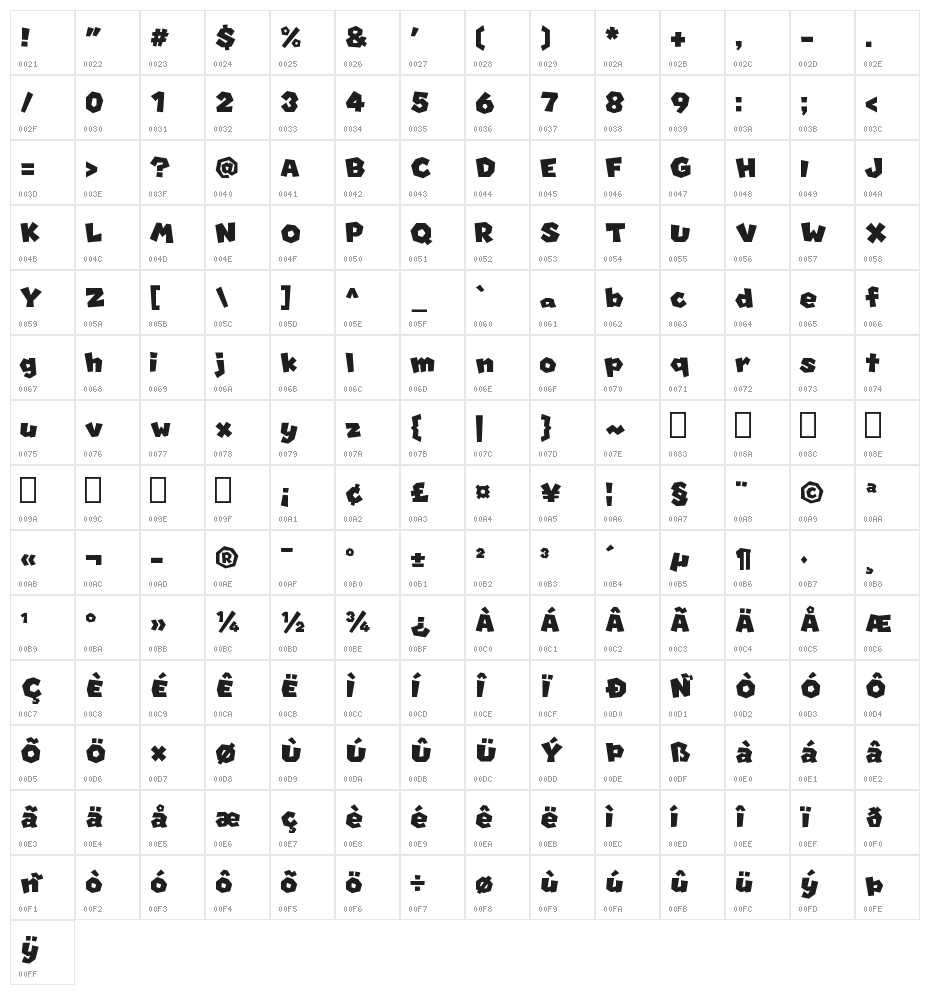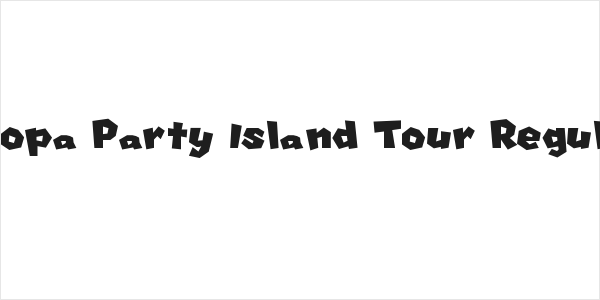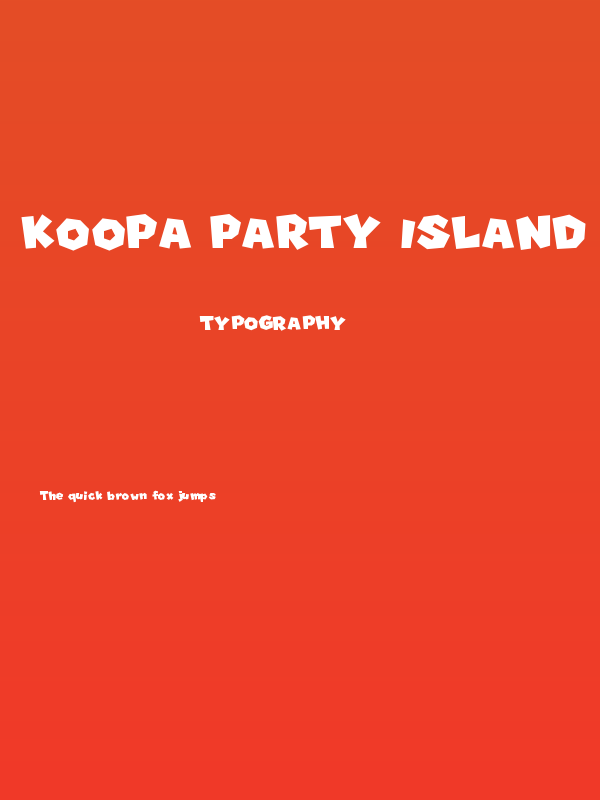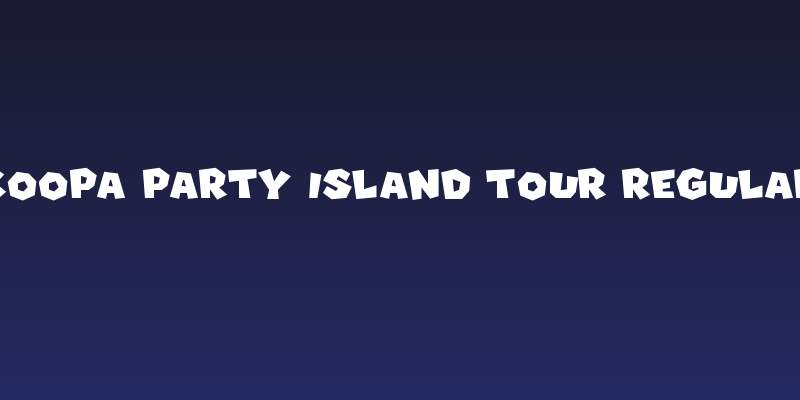
Koopa Party Island Tour Regular Font
Koopa Party Island Tour Regular Description
This font features a playful and bold design with a distinctly irregular and chunky appearance. The characters are crafted with a whimsical, almost cartoon-like style, giving them a lively and energetic feel. The uppercase and lowercase letters maintain a consistent thickness, contributing to a cohesive look across the alphabet. The numbers and special characters follow the same playful design, ensuring uniformity throughout. The font's unique style makes it stand out, ideal for projects that require a fun and engaging visual element.
| Overall Style | Playful, Cartoon-like, Energetic |
| Proposed Projects | Ideal for children's books, party invitations, video game graphics, and playful branding. |